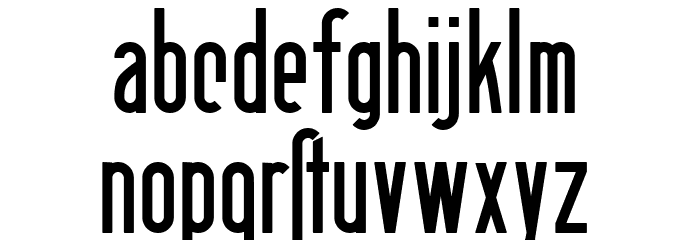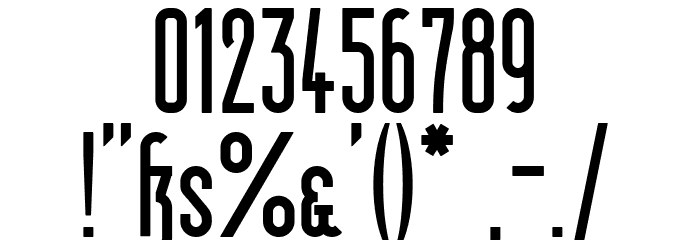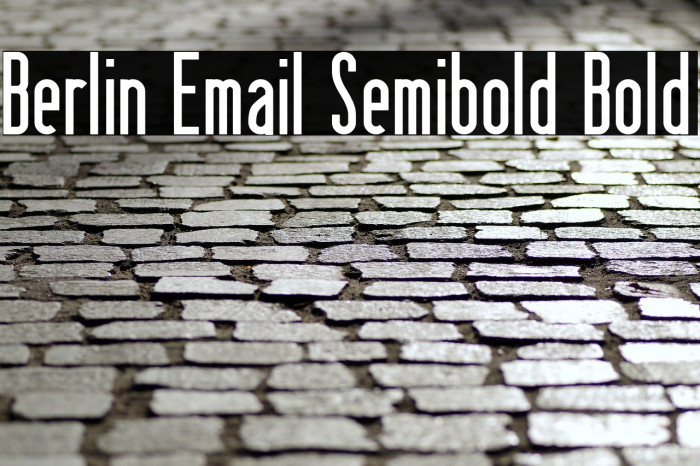
Berlin Email Semibold Bold Font
This font features a bold and modern design with tall, narrow characters that convey a sense of elegance and sophistication. The uppercase letters are particularly elongated, giving a sleek and streamlined appearance. The lowercase letters maintain a consistent style, with rounded edges that soften the overall look. The numerals are clear and easy to read, matching the height and style of the alphabet. Special characters are included and follow the same design principles, ensuring uniformity across all glyphs. This font's strong vertical emphasis and clean lines make it ideal for contemporary design projects.
A bold, modern font with tall, narrow characters and a sleek design.